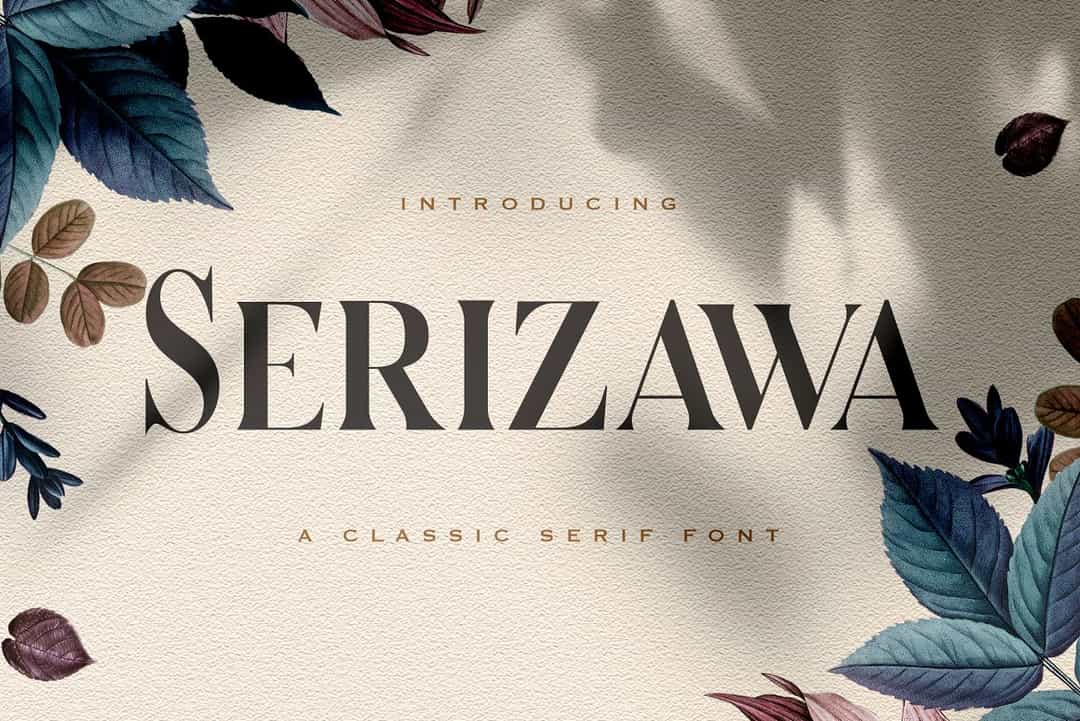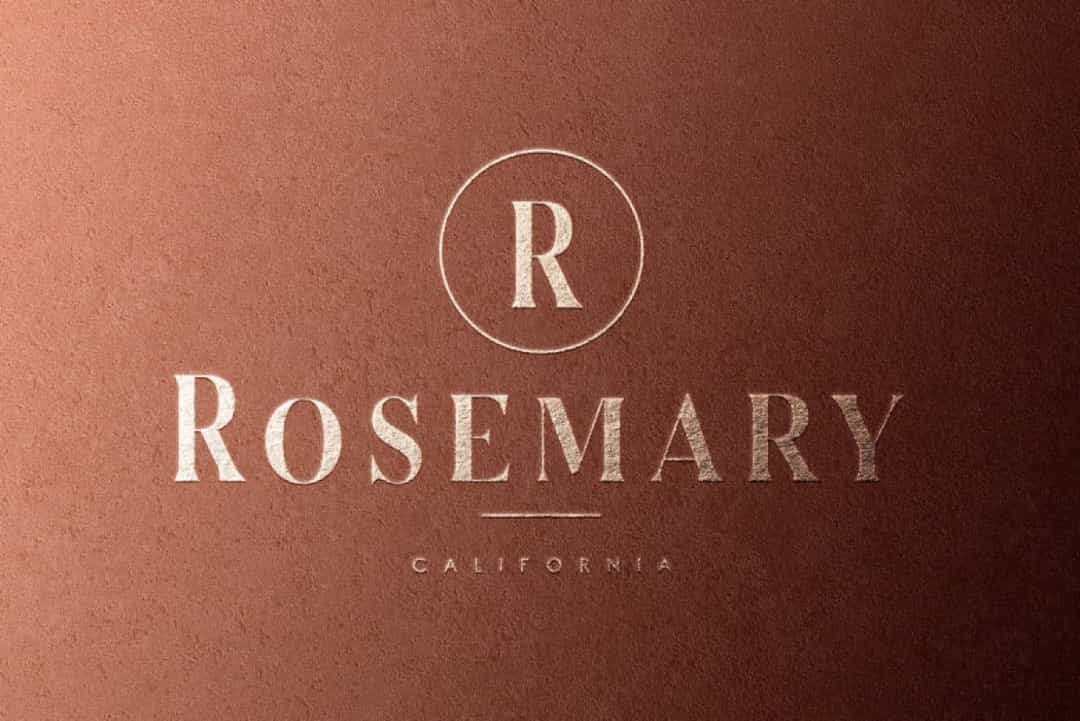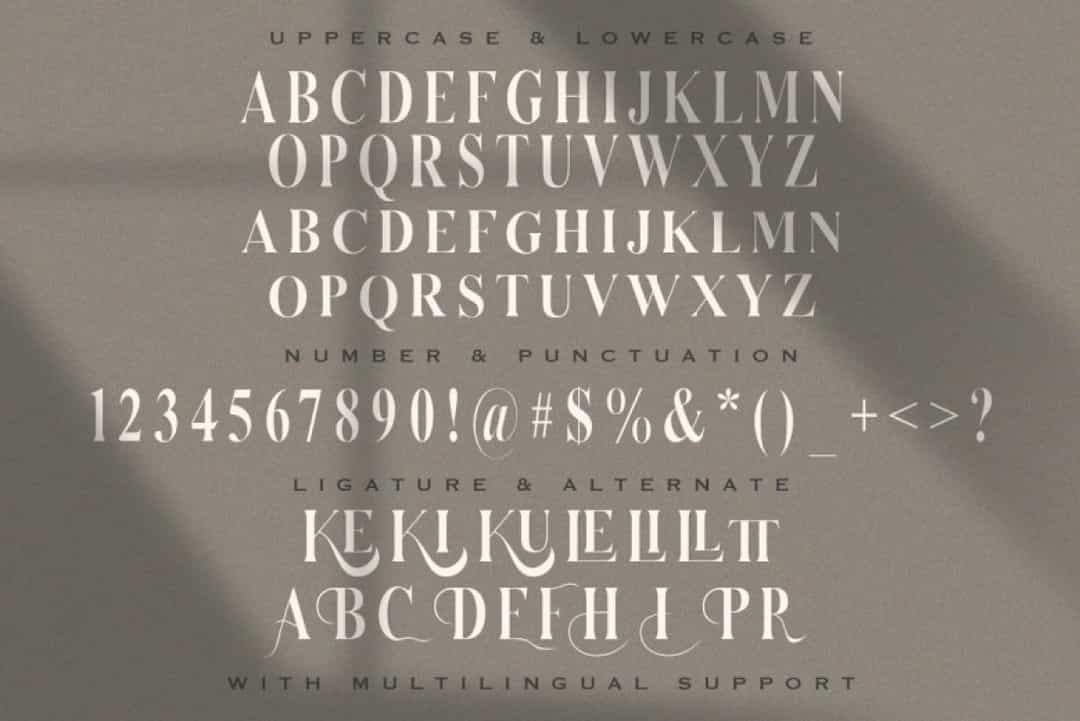
Serizawa is a beautiful and practical serif typeface developed by StringLabs. This can also be used with any design and style, so grab it and make it stand out! You will notice that Serizawa is different!